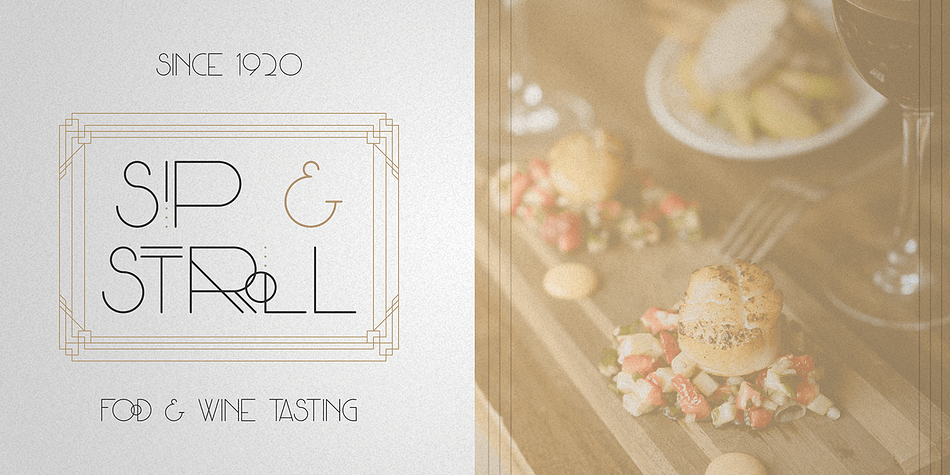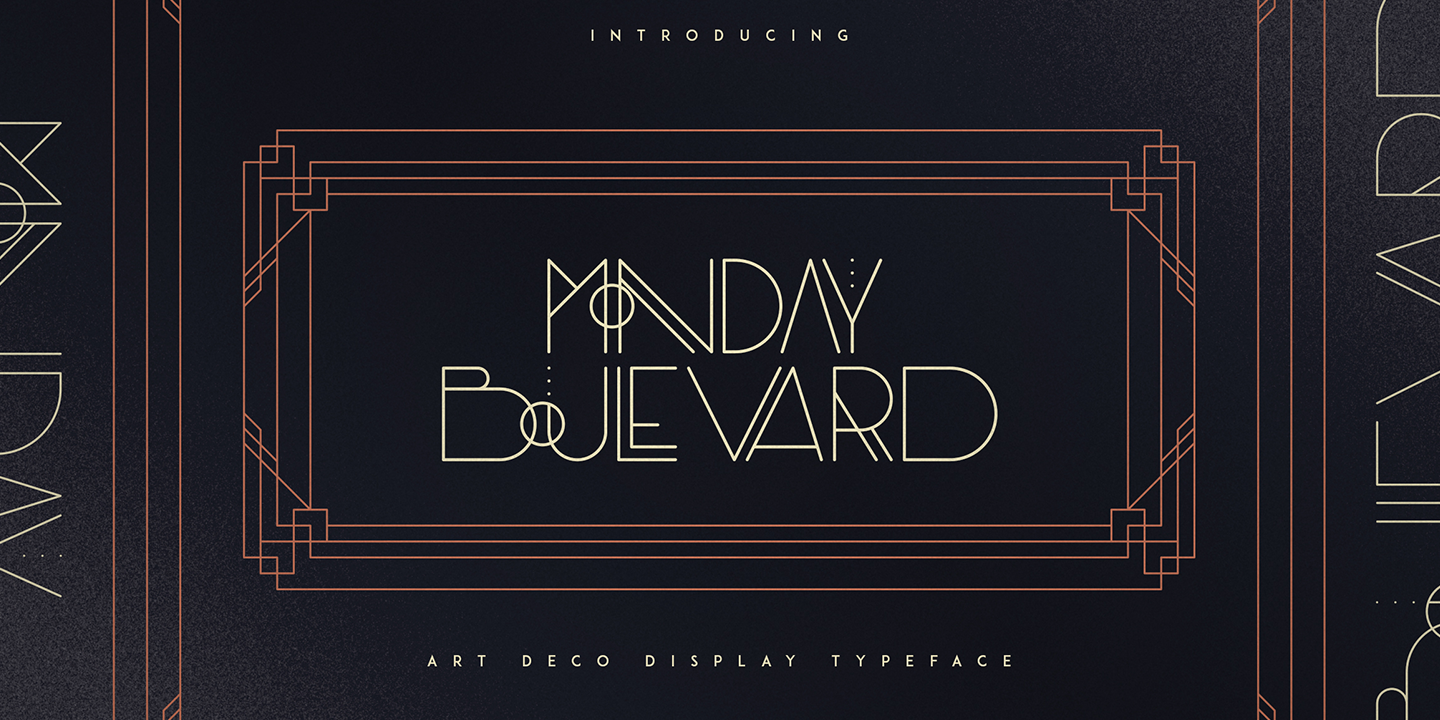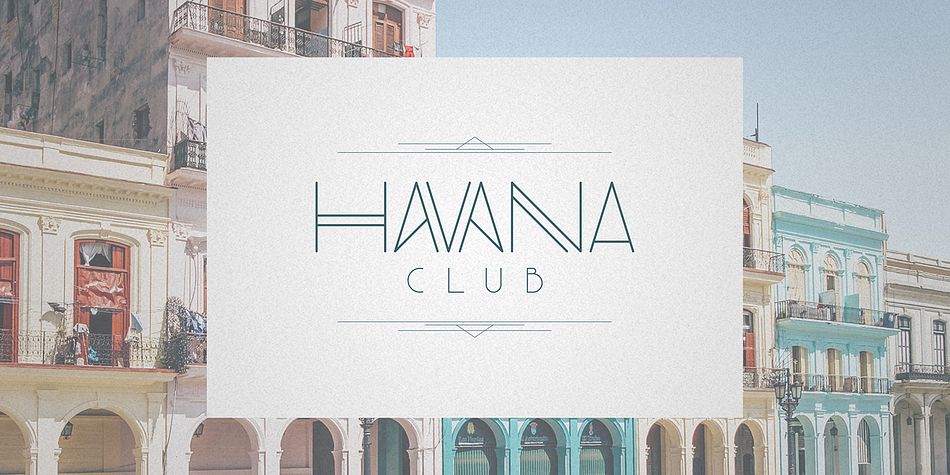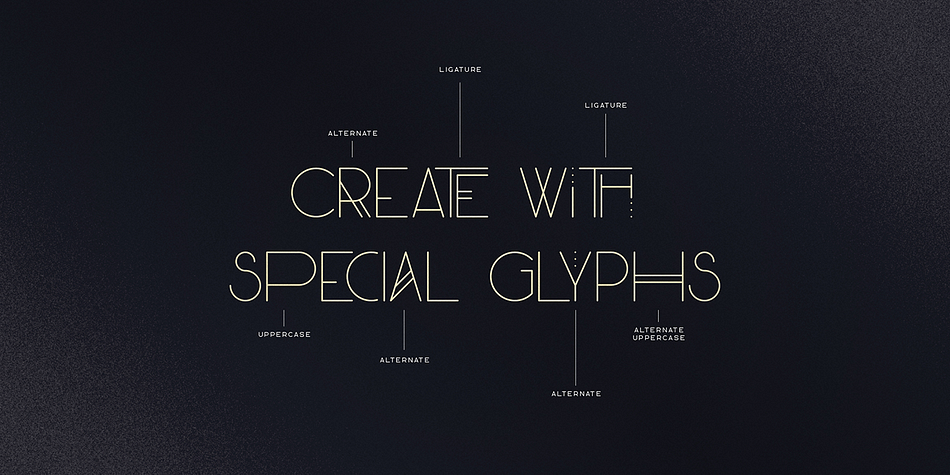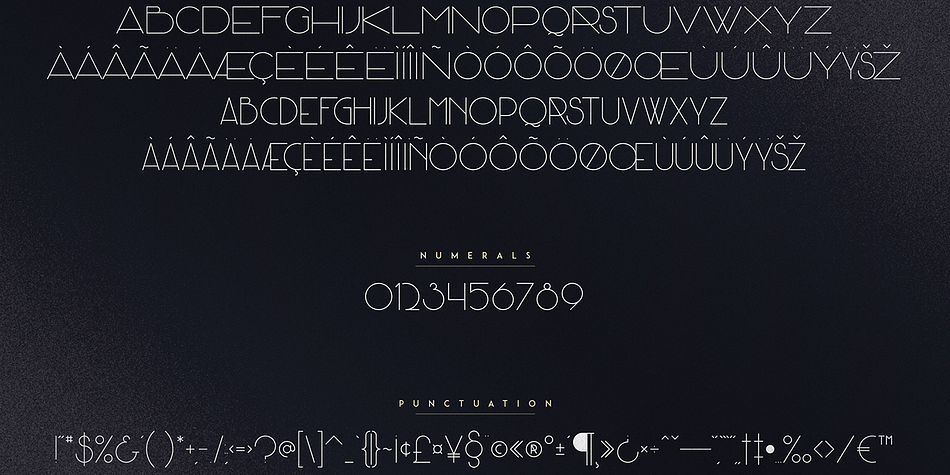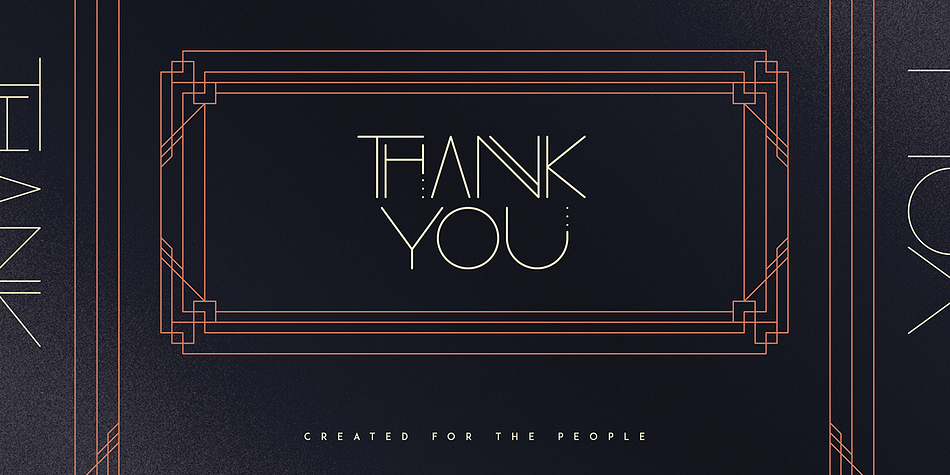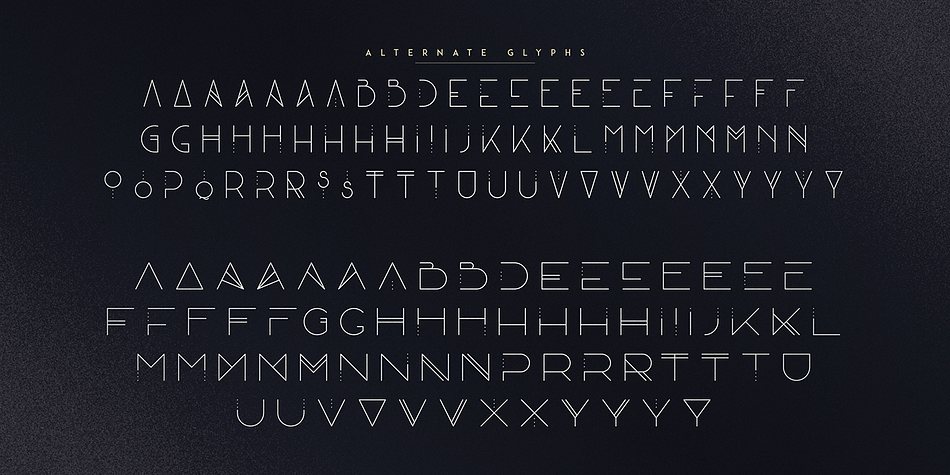
Monday Boulevard
Monday Boulevard is an art deco font family. This typeface has four styles and was published by VPcreativeshop.
Introducing Monday Boulevard - Art Deco Typeface - 4 weights
Monday Boulevard is retro, Art Deco typeface with 4 weights, ligature glyphs, alternates and multilingual support.
It’s a very versatile font that works great in large and small sizes.
Monday Boulevard is perfect for branding projects, home-ware designs, product packaging, magazine headers - or simply as a stylish text overlay to any background image.
Uppercase, lowercase, numeral, punctuation & Symbol
Light
Regular
Bold
Black
Alternate glyphs
Ligatures
Multilingual support
Foundry VPcreativeshop